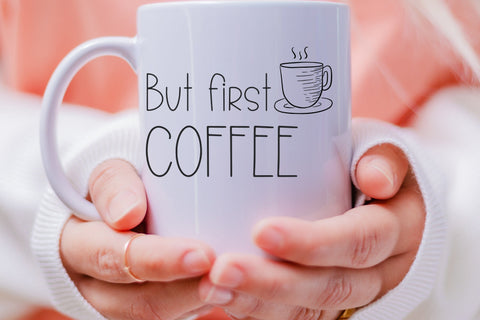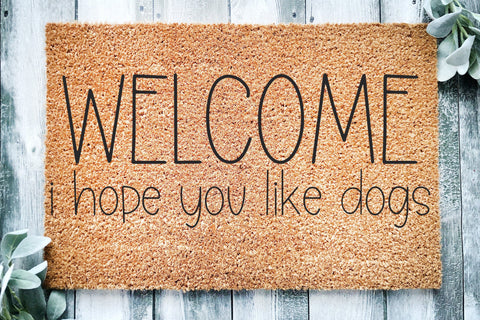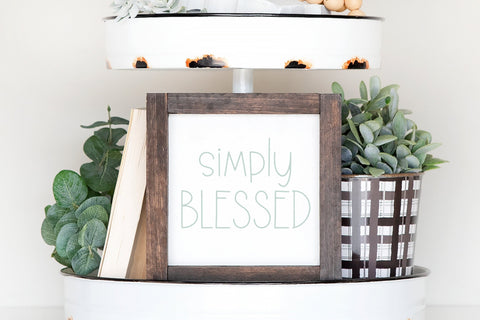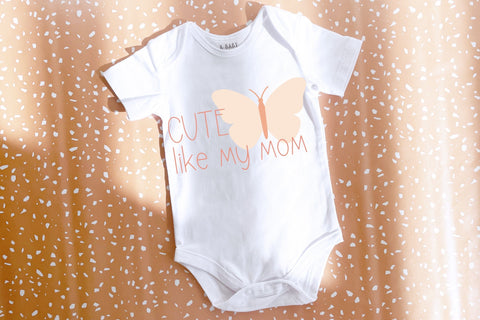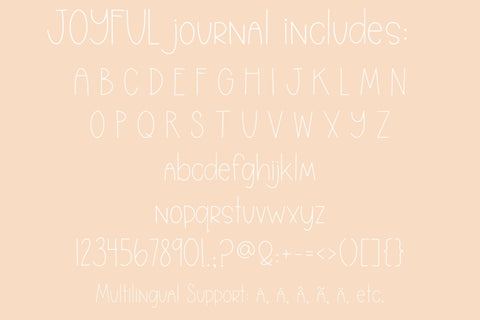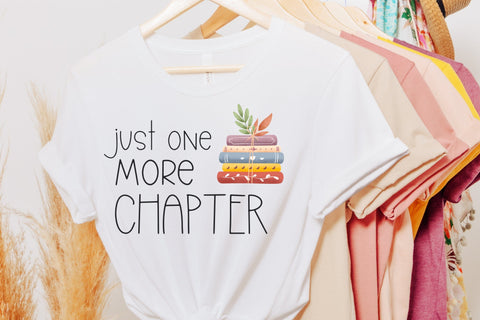
Joyful Journal, Cute Handwritten Font, Handwriting font for cricut
Introducing Joyful Journal, a neat handwritten font, perfect for digital planners or journals. This cute script font brings a delightful touch to invitations, greeting cards, and personalized crafts. Crafted specifically for Cricut users, this font is perfect for your Cricut font SVG designs, ensuring seamless compatibility with your cutting machine. Transform your designs into stunning works of art with this versatile handwriting font, the ultimate choice for anyone seeking a captivating and expressive typeface for their projects.